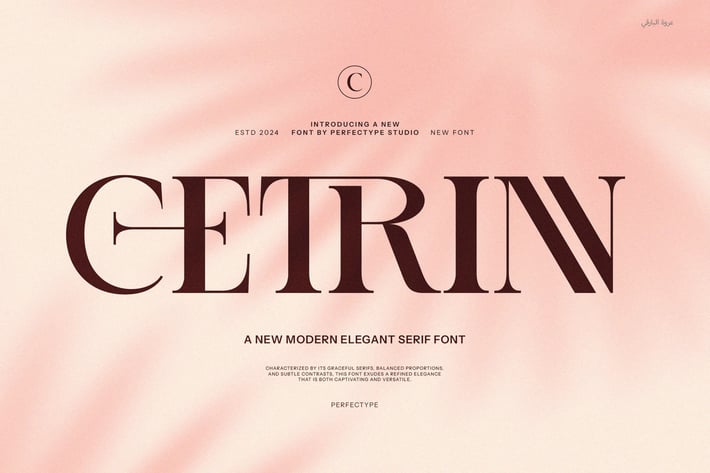
The Cetrinn Elegant Ligature Serif font stands out with its refined design and smooth ligatures. This font combines classic serif style with modern touches, making it a great choice for those who want a fresh yet elegant look. Because of its balanced form, it works well in both large headlines and body text.
First, this font’s clean lines and delicate ligatures add a unique flair to any project. These features create smooth connections between letters, improving the flow and readability of your text. As a result, it’s perfect for branding, editorial work, invitations, and luxury design projects.
Moreover, its versatility makes it suitable for various uses. For example, the font complements logos, product packaging, and website headings. It also pairs well with simple sans-serif fonts for clear, professional designs. Additionally, its elegant curves bring a touch of sophistication to any layout.
Key features and uses include:
- Stylish ligature serif font with elegant curves
- Balanced letterforms for readability and flow
- Ideal for branding, logos, and editorial projects
- Enhances invitations and luxury product designs
- Works well for headlines and body text
- Pairs smoothly with sans-serif fonts
- Adds a modern yet classic look to designs
- Suitable for print and digital use
Besides its appearance, the font’s structure supports easy reading. This means it can be used in long paragraphs or short titles without losing style. Therefore, it is perfect for designers who want a font that looks beautiful and performs well.
In summary, Cetrinn offers a clean, stylish serif font with smooth ligatures. It blends elegance and modern design, making it a versatile choice for many creative projects.